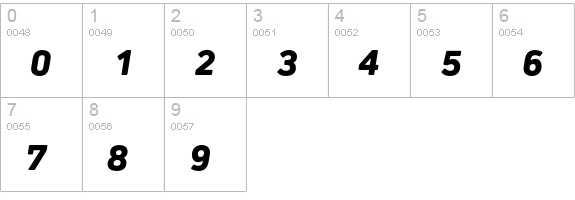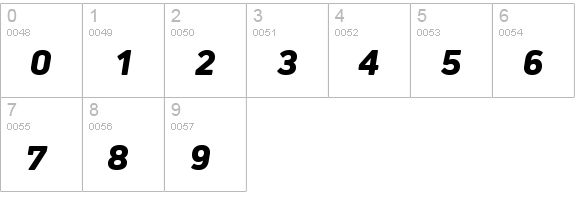
Kiro Extra Bold Italic is a strong, high-contrast, italic variant in the Kiro typeface family \xE2\x80\x94 well suited to headlines, attention-grabbing titles, and strong calls-to-action.
Kiro Extra Bold Italic is a stunning and eye-catching font that exudes boldness and elegance. With its strong, thick strokes and distinctive slanted design, this font is perfect for making a statement in your designs. Whether you're creating posters, logos, or headlines, Kiro Extra Bold Italic will demand attention and leave a lasting impression. This font is not only visually striking but also versatile, able to be used in a variety of design projects. Its modern and sophisticated look will add a touch of sophistication to any design. Kiro Extra Bold Italic is a must-have for designers looking to make a bold statement with their typography. The best part is that Kiro Extra Bold Italic is available for free download at FontsMarket.com. Now you can access this stylish and impactful font without having to break the bank. Download Kiro Extra Bold Italic today and elevate your designs with its powerful presence.